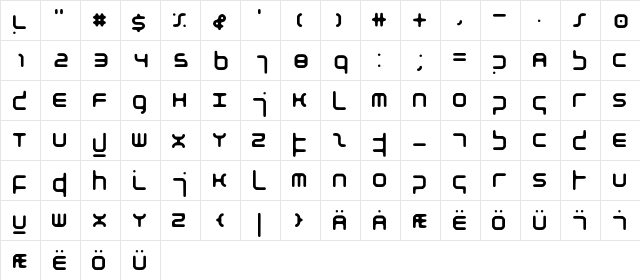
Atmosphere Round
Design Context for Atmosphere Typeface
Atmosphere uses gentle rounded endings to create a warm, inviting typographic personality — less corporate than geometric sans, more refined than playful display fonts.
Well-suited to UI design, mobile interfaces, and any brand that wants approachability without sacrificing clarity.
Font Pairing: Pairs well with a rounded or humanist sans for body copy, maintaining the friendly tone without relying on Atmosphere to carry extended reading.
Pro Tip: Use Atmosphere for UI elements, app interfaces, and anywhere a friendly, approachable tone needs to be maintained without sacrificing clarity.